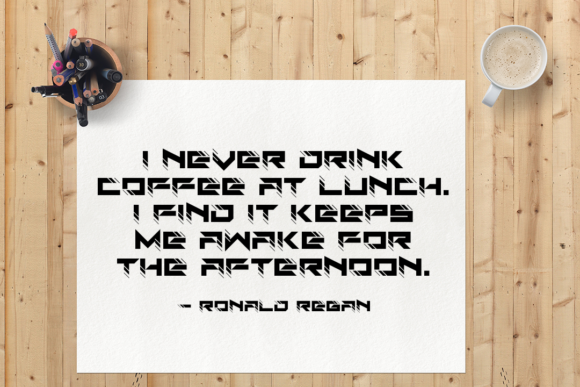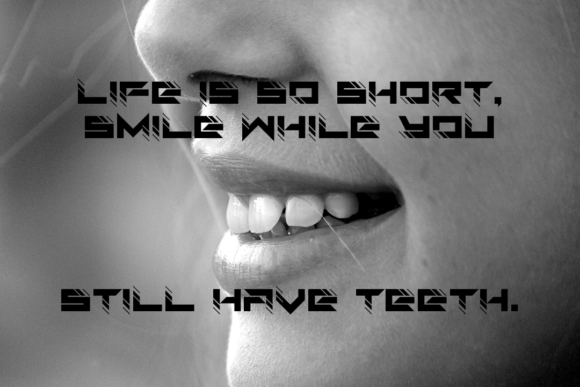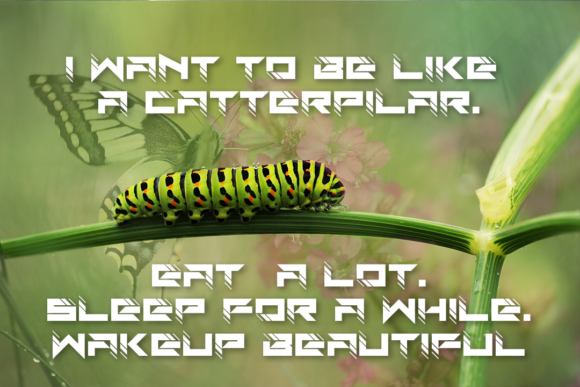
Discover the Futuristic Style of Auto Techno Font
In the realm of typography, fonts play a crucial role in conveying the message and aesthetic of a design. For those seeking a bold and futuristic look, the Auto Techno font stands out as an exceptional choice. Created by EyeCone, this striking true type font has been gaining popularity among designers and crafters for its unique and captivating style.
The Origins of Auto Techno Font
The Auto Techno font is a product of the creative minds at EyeCone, a renowned entity in the world of typography and design. With a keen eye for detail and a deep understanding of the evolving needs of designers, EyeCone has consistently delivered high-quality fonts that cater to a wide range of projects. The Auto Techno font is no exception, embodying the perfect blend of modernity and functionality.
Key Features of Auto Techno Font
So, what makes the Auto Techno font so special? Here are some of its key features:
• Unique and Futuristic Design: The Auto Techno font boasts a distinctive and futuristic design that instantly captures attention. Its sleek lines and modern aesthetic make it perfect for projects that require a cutting-edge look.
• High Versatility: Whether you’re working on a digital project, crafting a logo, or designing a poster, the Auto Techno font adapts seamlessly to different contexts, offering great flexibility.
• Easy to Read: Despite its futuristic appeal, the Auto Techno font maintains a high level of readability, making it suitable for both headlines and body text.
Applications of Auto Techno Font
The Auto Techno font’s versatility opens up a wide range of applications across various design fields. Here are some popular uses:
• Digital Media: Perfect for website headers, social media graphics, and digital advertisements where a modern look is desired.
• Logo Design: The unique style of Auto Techno makes it an excellent choice for logos that need to stand out and convey a sense of innovation.
• Print Media: Suitable for posters, flyers, and brochures aiming for a futuristic or tech-oriented theme.
• Packaging Design: Adds a modern touch to product packaging, especially for tech gadgets and innovative products.
Tips for Using Auto Techno Font
To maximize the impact of the Auto Techno font in your designs, consider the following tips:
• Mix and Match: Combine Auto Techno with complementary fonts to create visual interest and hierarchy in your designs.
• Play with Sizes: Utilize different font sizes to emphasize key messages and create a dynamic layout.
• Experiment with Colors: The Auto Techno font looks great in bold colors. Experiment with color schemes that match the theme of your project.
The Auto Techno font by EyeCone is a powerful tool for designers and crafters looking to infuse their projects with a futuristic vibe. Its unique design, versatility, and readability make it an excellent choice for a wide range of applications. By incorporating the Auto Techno font into your design arsenal, you’re sure to create visually stunning and impactful works that stand out in any field.
In conclusion, the Auto Techno font is more than just a typeface; it’s a design statement that can elevate your projects to new heights. With its futuristic appeal and functional benefits, it’s an asset for any designer or crafter looking to make a mark in the world of design.